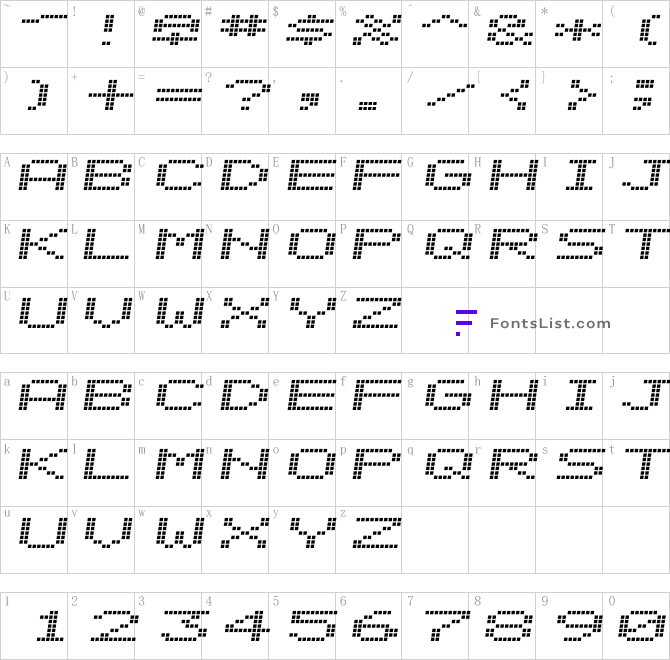
- Font Name:Alpine 7558S
Alpine-7558S.ttf is a very beautiful artistic font, Alpine-7558S.ttf is widely used in the design and printing of various books and pictures,Alpine-7558S.ttf has a strong visual impact,Alpine-7558S.ttf is a commonly used font in newspapers, magazines and books, and is used in posters, e-commerce Poster design, store design, logo design, font design and other fields.Alpine-7558S.